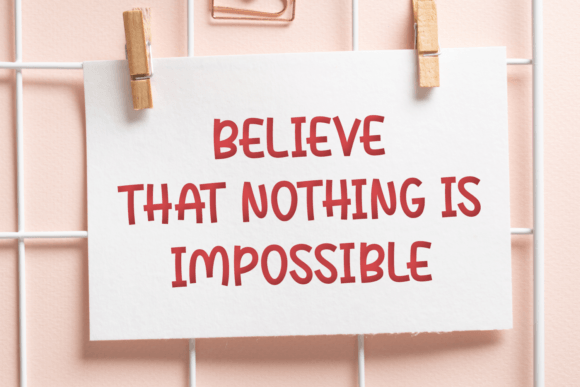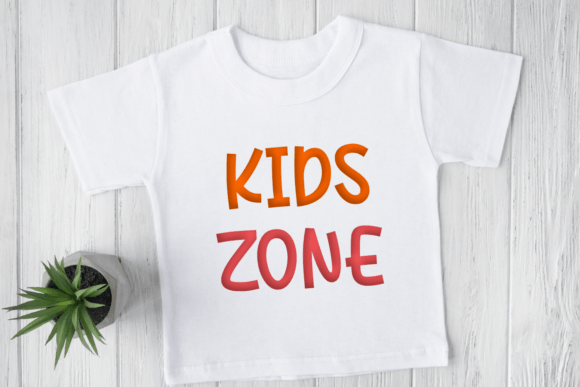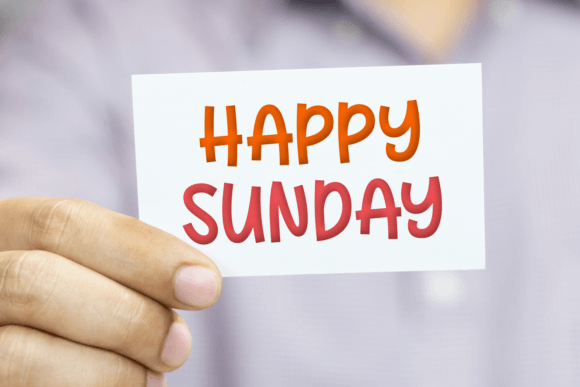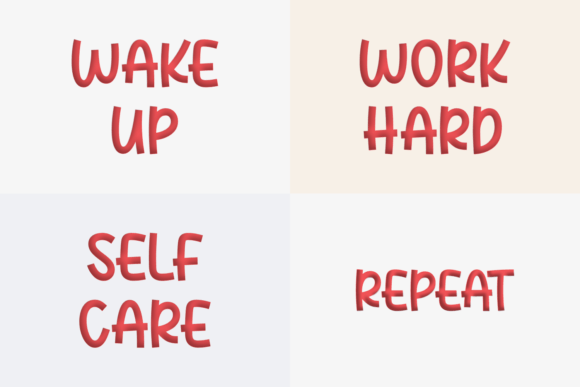
Introduction to Jermani Font
Have you ever found yourself scribbling down a quote or a witty phrase in the middle of the night, only to realize that it’s the perfect idea for your next creative project? That’s exactly what happened to many designers who stumbled upon the charming “Jermani Font”. This display font is a game-changer, offering a unique blend of playfulness and sophistication that’s sure to elevate any design.
As a valuable design resource, Jermani Font is perfect for adding a dynamic touch to your notes, comics, or even T-shirt designs. With its transparent background and high-quality design, this font is a must-have for any creative project. Whether you’re a seasoned designer or a beginner looking to spice up your portfolio, Jermani Font is an excellent choice.
Key Features of Jermani Font
- Comes with a transparent background, making it easy to integrate with various design elements.
- Includes 5 font styles, each with its own distinct characteristics, providing versatility for different design applications.
- Features a large character set, including uppercase and lowercase letters, numbers, and punctuation marks, making it suitable for a wide range of creative projects.
Honest Review: Jermani Font
As a designer, I’m always on the lookout for high-quality design resources to elevate my creative projects. Recently, I stumbled upon the Jermani Font, and I’m excited to share my honest review with you.
- ✨ The Jermani Font boasts a unique and elegant design that’s perfect for a wide range of creative projects.
- ⚠️ The font may not be suitable for all types of projects, particularly those requiring a more modern or bold aesthetic.
Overall, I’m impressed with the Jermani Font’s design and functionality. While it may not be perfect for every project, it’s a great resource for designers looking for a high-quality, free font with a transparent background.
Jermani Font is a high-quality design resource ideal for creative projects. Its unique style and versatility make it perfect for various applications, from branding to publishing.
Jermani Font is commonly used in creative projects, such as branding, publishing, and advertising. Its high-quality design and versatility make it perfect for a wide range of applications.